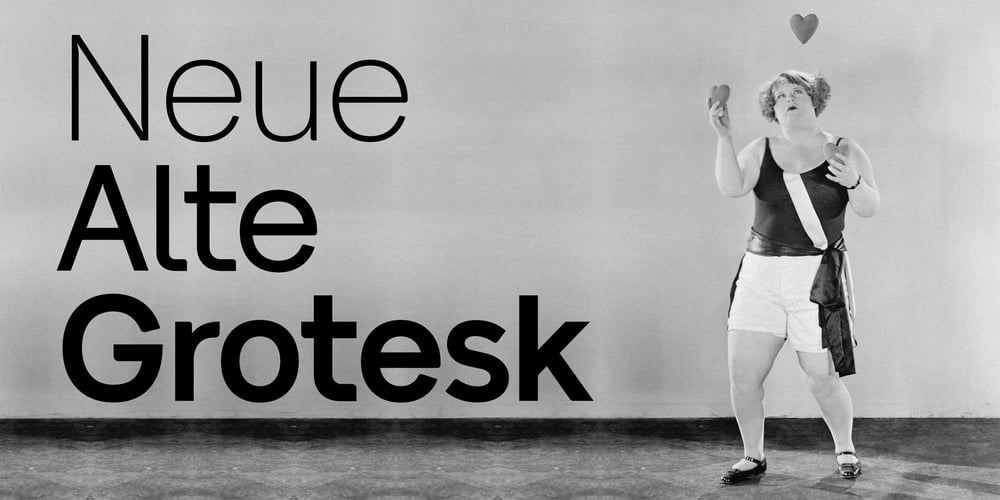
Neue Alte Grotesk Font Family was designed by Krzysztof Chuć and published by VisualWorks. Neue Alte Grotesk contains 10 styles and family package options. Inspired by German grotesk from XIXth century. Driven by the spirit of 1950s Swiss Style. Designed with a hint of constructivist approach. Neue Alte Grotesk is a minimalistic typeface with a distinct character. It is created to connect both new and old. It will look good in juxtaposition with retro-styled illustrations and ultra-modern graphics.